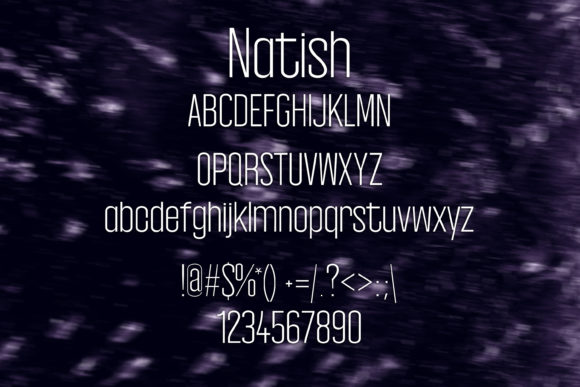
Introduction to Natish Font
As a designer, you’ve probably found yourself stuck on a project, struggling to find the perfect font to bring your vision to life. You’ve scrolled through countless options, but nothing seems to capture the essence of your creative project. That’s where the Natish Font comes in – a game-changing, modern sans serif font that combines elegance and legibility in perfect harmony.
Key Features of Natish Font
- High-quality design resource with a unique, creative style perfect for various projects.
- Features a high-resolution design, with a resolution of 300 DPI, ensuring crisp and clear text display.
- Designed to be highly versatile, making it an excellent choice for a wide range of creative projects, from logos to typography.
- Excellent for designers looking for a free, high-quality font to enhance their designs and add a touch of elegance.
Honest Review: Natish Font
As a designer, I’m always on the lookout for high-quality design resources to elevate my creative projects. The Natish Font caught my eye, and I’m excited to share my honest review with you.
- ✨ The Natish Font offers a unique and modern aesthetic, making it perfect for contemporary design projects.
- ✨ The high-quality design ensures that the font will look great on a variety of devices and screens.
- ⚠️ The font may not be suitable for projects that require a more classic or traditional look.
- ⚠️ Some users may find the font to be too bold or overpowering.
Overall, I’m impressed with the Natish Font. Its unique design and high-quality construction make it a valuable addition to any designer’s toolkit. Whether you’re working on a personal project or a commercial client, the Natish Font is definitely worth considering.
To get the most out of the Natish Font, experiment with different font sizes, colors, and combinations. You can also use it with other design elements, such as images and graphics, to create visually appealing designs.
The Natish Font is great for various design applications, including:
- Presentation slides